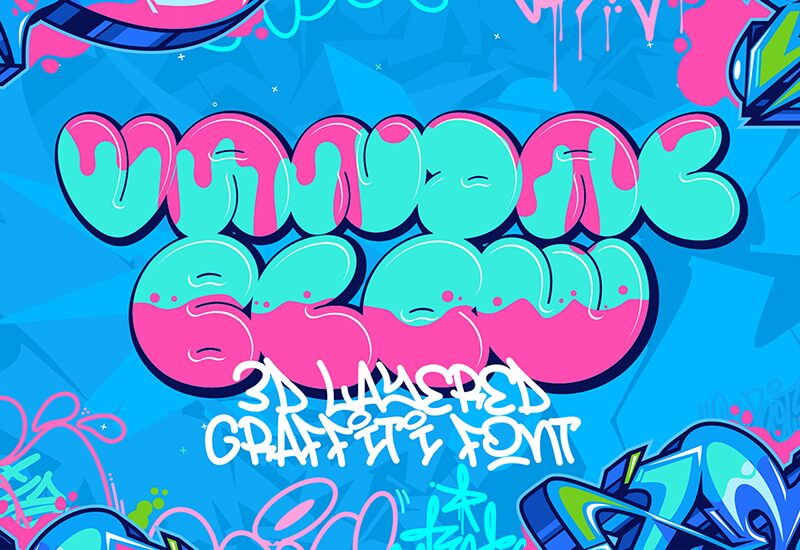
Vandal Blow Graffiti font family by Cikareotype Studio comprises a total of three font styles, all inspired by the enchanting graffiti art style. The free font designs look vibrant and dynamic in addition to being youthful and energetic. Each font in the family has an urban, street culture-infused design, with artistic layers and outlined features. Use Vandal Blow Graffiti to express boldly and artistically by showcasing contemporary and expressive ideas.